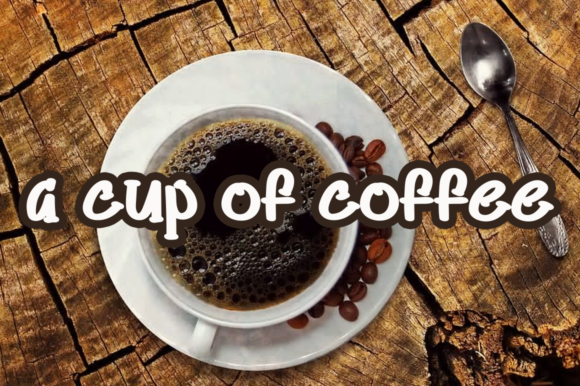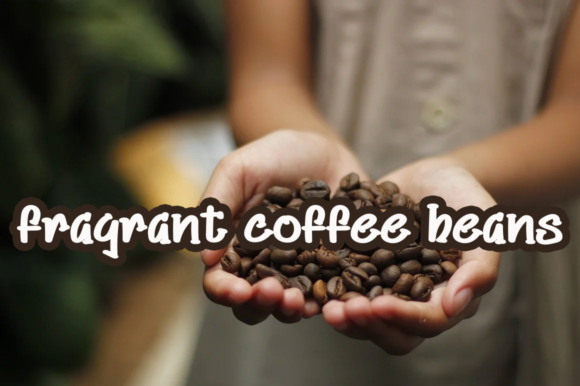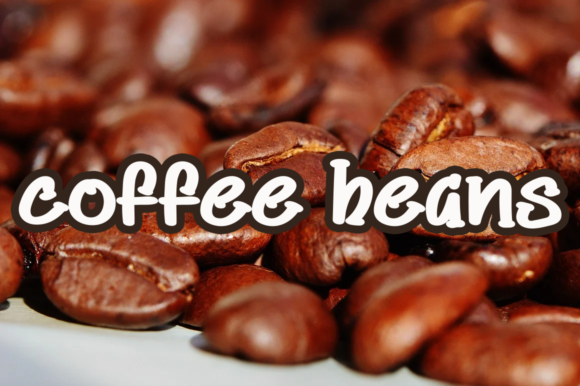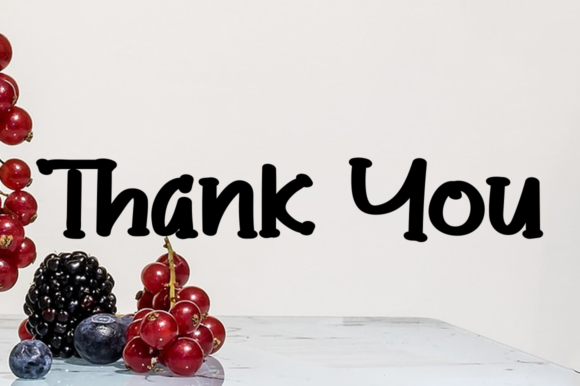
Coco Water Font: The Quirky and Sweet Display Font for Your Designs
Coco Water Font is an incredibly quirky and sweet display font that has captured the hearts of designers and crafters alike. Whether you’re working on cartoon-related designs, children’s games, or any creation that requires a lovely touch, this font is an amazing choice. In this article, we’ll dive into the features and benefits of Coco Water Font, and explore how you can use it to elevate your designs.
What is Coco Water Font?
Coco Water Font is a unique and playful display font that boasts a distinctive, hand-drawn style. Its quirky and sweet aesthetic makes it perfect for designs that require a touch of whimsy and fun. The font features rounded edges, irregular shapes, and a carefree vibe that’s sure to capture the attention of your audience.
Key Features of Coco Water Font
- Quirky and Sweet Design: Coco Water Font features a one-of-a-kind design that’s both quirky and sweet. Its unique style is sure to make your designs stand out from the crowd.
- Hand-Drawn Style: The font boasts a hand-drawn style that gives it a personal and organic feel. This makes it perfect for designs that require a touch of warmth and personality.
- Display Font: Coco Water Font is a display font, making it perfect for headlines, titles, and other attention-grabbing elements in your designs.
- Versatile: Despite its quirky design, Coco Water Font is surprisingly versatile. You can use it for a wide range of designs, from cartoon-related projects to children’s games and more.
Benefits of Using Coco Water Font
So, why should you choose Coco Water Font for your designs? Here are just a few benefits of using this amazing font:
- Adds a Touch of Whimsy: Coco Water Font adds a touch of whimsy and fun to your designs, making them more engaging and attention-grabbing.
- Perfect for Children’s Designs: The font’s playful design makes it perfect for children’s designs, such as games, books, and educational materials.
- Easy to Read: Despite its quirky design, Coco Water Font is surprisingly easy to read, making it perfect for headlines and titles.
- Unique and Memorable: Coco Water Font is a unique and memorable font that’s sure to make your designs stand out from the crowd.
How to Use Coco Water Font in Your Designs
Using Coco Water Font in your designs is easy. Here are a few tips to get you started:
- Pair it with Other Fonts: Coco Water Font pairs well with other fonts, such as sans-serif fonts and script fonts. Experiment with different combinations to find the perfect look for your design.
- Use it for Headlines and Titles: Coco Water Font is perfect for headlines and titles. Use it to add a touch of whimsy and fun to your designs.
- Experiment with Colors: Coco Water Font looks great in a variety of colors. Experiment with different colors to find the perfect look for your design.
Coco Water Font is an incredibly quirky and sweet display font that’s perfect for designers and crafters. Its unique design, hand-drawn style, and versatility make it a great choice for a wide range of designs. Whether you’re working on cartoon-related designs, children’s games, or any creation that requires a lovely touch, Coco Water Font is an amazing choice. So why not give it a try and see how it can elevate your designs?
- Use Coco Water Font for Packaging Designs: Coco Water Font is perfect for packaging designs that require a touch of whimsy and fun.
- Experiment with Different Sizes: Coco Water Font looks great in different sizes. Experiment with different sizes to find the perfect look for your design.
- Pair it with Images: Coco Water Font pairs well with images, especially illustrations and cartoons. Use it to add a touch of personality to your designs.